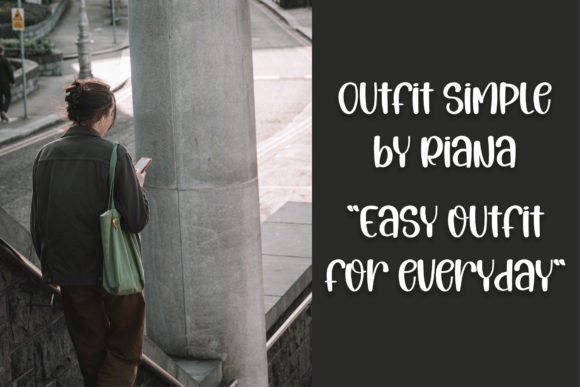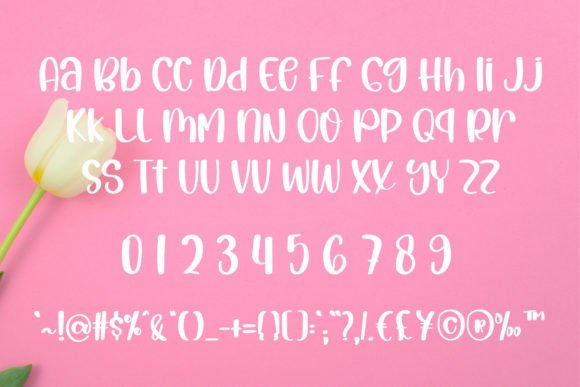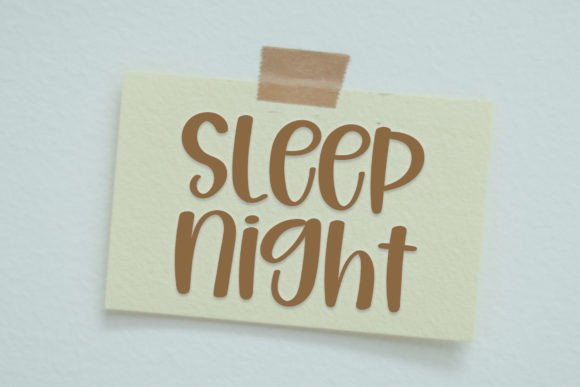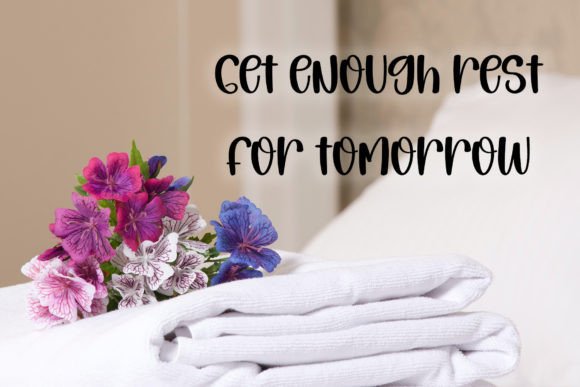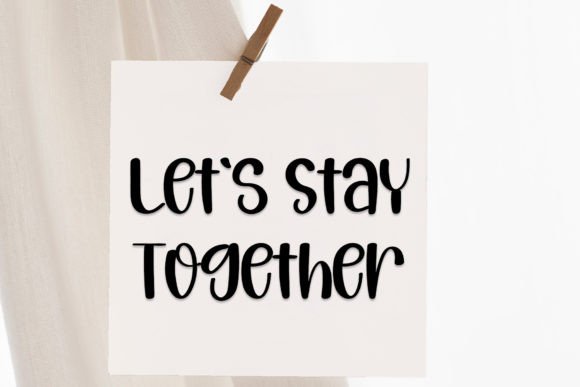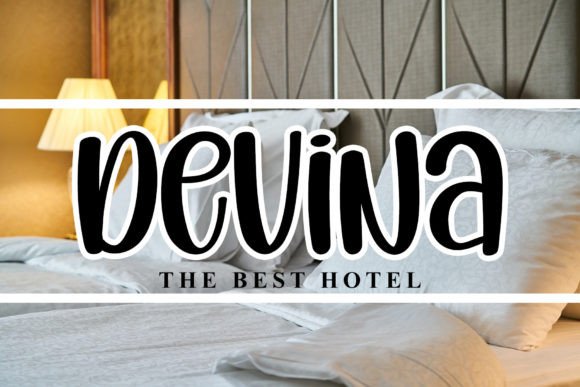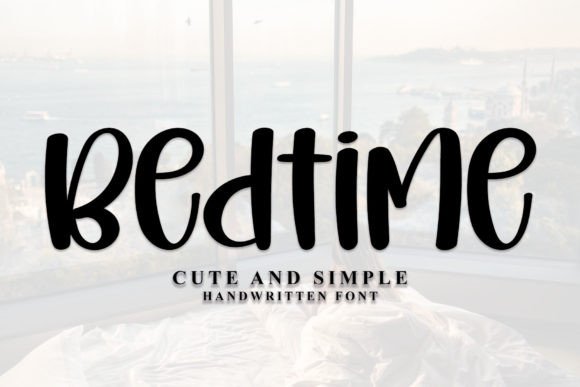
Introducing Bedtime Font: The Perfect Blend of Elegance and Style
Are you on the hunt for a font that exudes elegance and sophistication? Look no further than Bedtime Font, a beautiful handwritten font that is sure to capture your heart. Crafted with a touch of refinement, Bedtime Font is the perfect addition to any design project, from wedding invitations to logos, and everything in between.
The Distinctive Style of Bedtime Font
Bedtime Font boasts a unique and timeless style that sets it apart from other fonts. Its elegant, cursive script is perfect for creating beautiful and eye-catching designs that are sure to leave a lasting impression. Whether you’re a designer, crafter, or DIY enthusiast, Bedtime Font is the perfect choice for adding a touch of sophistication to your projects.
Endless Design Possibilities with Bedtime Font
One of the best things about Bedtime Font is its versatility. This stunning font can be used to create a wide range of designs, including:
- Templates: Create stunning templates for social media, blogs, or websites using Bedtime Font.
- Wedding Invitation Cards: Make your wedding invitations truly special with the elegant and refined style of Bedtime Font.
- Crafts: Add a touch of elegance to your handmade crafts, such as knitted items, jewelry, or home decor.
- Birthday Cards: Create beautiful and personalized birthday cards for friends and family.
- Logos: Use Bedtime Font to create stunning logos for your business or brand.
- Nameplates: Add a touch of sophistication to your nameplates, whether for a business, event, or personal project.
Why Choose Bedtime Font?
So, why should you choose Bedtime Font for your design projects? Here are just a few reasons:
- Elegance and Sophistication: Bedtime Font exudes elegance and sophistication, making it perfect for high-end designs.
- Versatility: This font can be used for a wide range of design projects, from wedding invitations to logos.
- Timeless Style: Bedtime Font has a timeless style that will never go out of fashion.
- Easy to Read: Despite its elegant style, Bedtime Font is easy to read, making it perfect for body text and headlines.
Tips for Using Bedtime Font
To get the most out of Bedtime Font, here are a few tips:
- Use it sparingly: While Bedtime Font is beautiful, it can be overwhelming if used too much. Use it sparingly to add a touch of elegance to your designs.
- Pair it with other fonts: Bedtime Font pairs well with other fonts, such as sans-serif fonts. Experiment with different pairings to find the perfect combination.
- Adjust the size and color: Experiment with different sizes and colors to find the perfect look for your design.
In conclusion, Bedtime Font is a stunning handwritten font that is perfect for designers, crafters, and DIY enthusiasts. Its elegant and refined style makes it perfect for a wide range of design projects, from wedding invitations to logos. With its versatility, timeless style, and ease of use, Bedtime Font is sure to become a favorite in your design arsenal.
Get Ready to Fall in Love with Bedtime Font
So, what are you waiting for? Fall in love with Bedtime Font and start creating stunning designs that are sure to leave a lasting impression. Whether you’re a seasoned designer or just starting out, Bedtime Font is the perfect choice for adding a touch of elegance and sophistication to your projects.